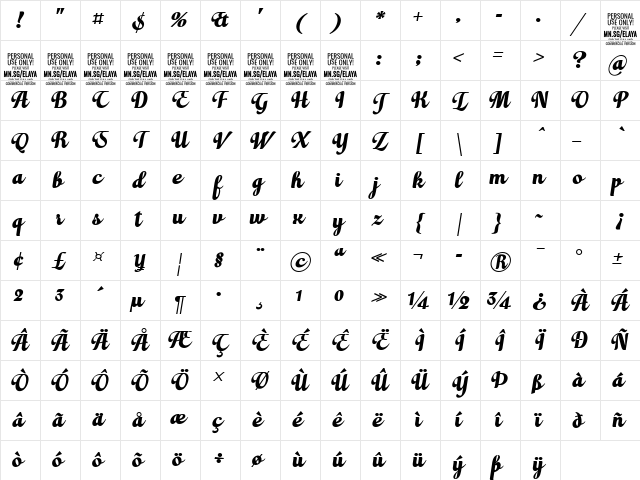
Elaya Script PERSONAL USE ONLY Regular Free Font
Elaya Script PERSONAL USE ONLY Regular
Foundry: Mans Greback
Designer: Mans Greback
Design Context for Elaya Script PERSONAL USE ONLY
Elaya Script PERSONAL USE ONLY flows with the natural rhythm of handwritten lettering, making it ideal for designs that call for warmth and personal expression.